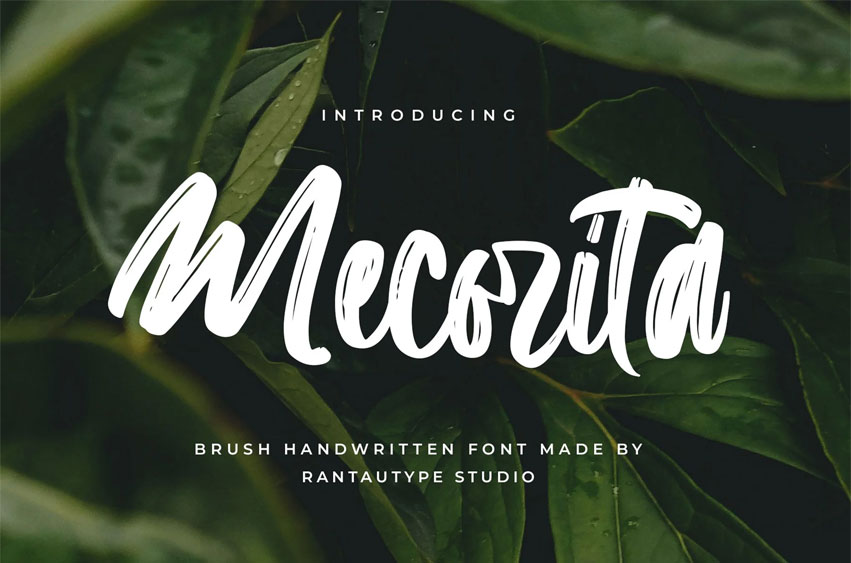
Mecorita Font is a bold and stylish brush handwritten typeface created by Rantautype Studio.
It is an excellent choice for a variety of creative projects, including modern lifestyle designs such as logotypes, titles, covers, branding, invitations, wedding designs, displays, magazine layouts, social media posts, advertisements, printed quotes, product packaging, corporate branding, product designs, labels, photography, watermarks, special events, and any other project that requires a contemporary touch.